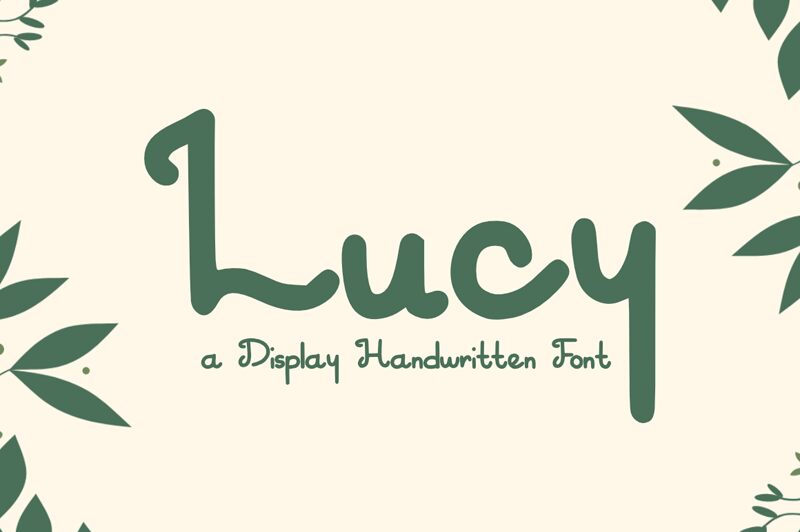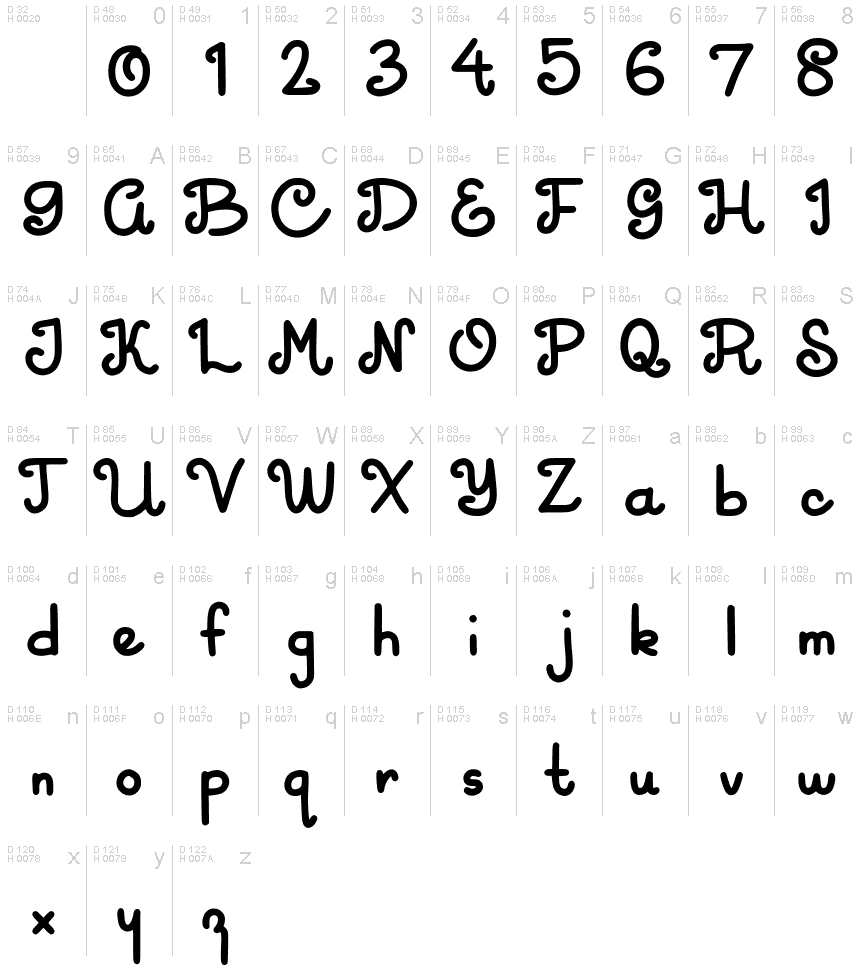
Lucy
Lucy, the elegant semi-light handwritten font by Letterayu, is perfect for adding a personal touch to any design project. Its delicate strokes and curves create a graceful and refined feel that can be used for anything from wedding invitations to branding projects. Whether you're creating a logo or designing a greeting card, Lucy's unique style will set your work apart. Use this charming semi-light font to add warmth and personality to your designs. With its versatile nature, Lucy can be used in various projects such as journals, social media graphics, posters and more!